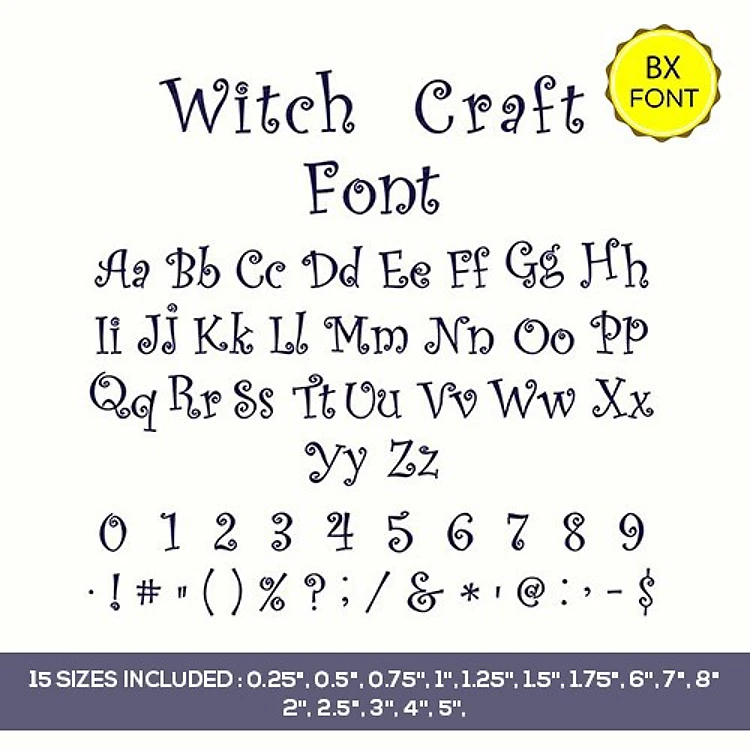
Witchcraft Font Embroidery Font - Whimsical Decorative Lettering - 15 Sizes Included - BX font by Maya Kreations and other embroidery fonts available at EmbroideryDesigns.com.
Maya Kreations is happy to present Witchcraft Font Embroidery Font - Whimsical Decorative Lettering - 15 Sizes Included - BX font machine embroidery font which has Playful decorative machine embroidery font suited for holiday projects like Halloween-themed apparel and decor. Available in BX font and Embrilliance formats, with 15 sizes ranging from 0.25 to 8. included. If you would like to view more embroidery fonts and alphabets please search our embroidery fonts page.